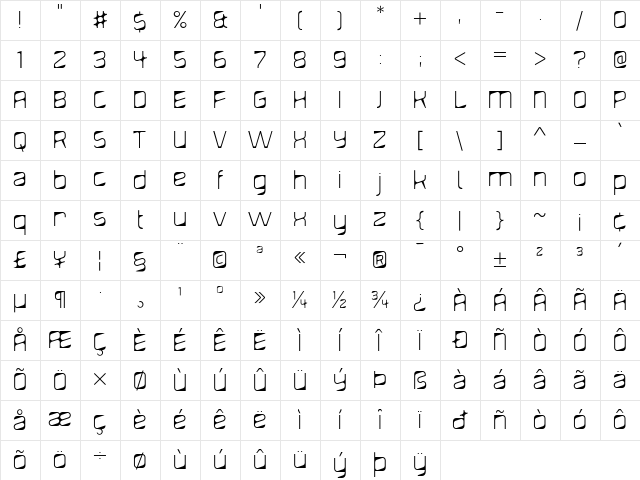
Diagond Light Free Font
Diagond Light
Foundry: Jan Schmoeger/Paragraph
Designer: Jan Schmoeger
Diagond Family
Diagond Light
Design Context for Diagond
Diagond is a composed and adaptable typeface that performs quietly and consistently across a wide range of design contexts. Its slender proportions lend an understated elegance to any composition.